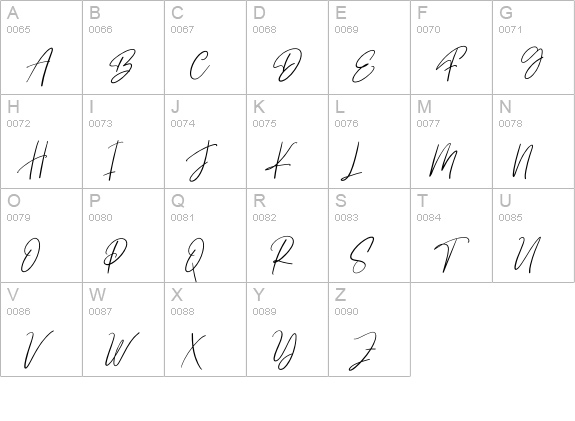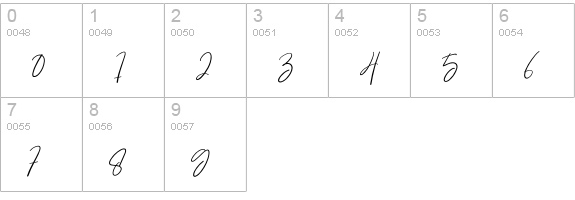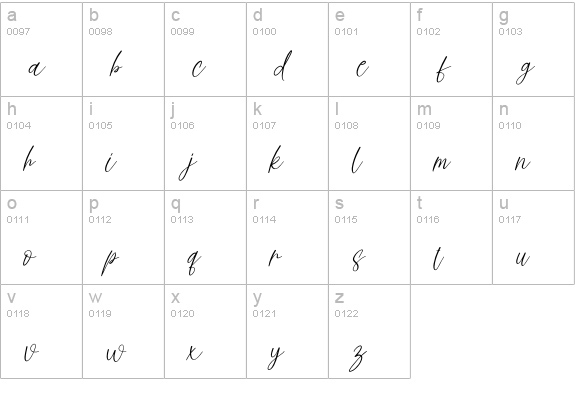
Doctor Signature Font Details
Doctor Signature is a free for personal use font in the Script > Handwritten category, designed by scratchones. It has been downloaded 63 times and is available for Windows, Mac and Linux.
Introducing Doctor Signature font, a sophisticated and elegant typeface designed to add a touch of professionalism and charm to your projects. This unique font features sleek lines and graceful curves, perfect for creating stunning designs that make a lasting impression. Whether you're working on invitations, branding materials, or any other creative project, Doctor Signature font will elevate your work to the next level.